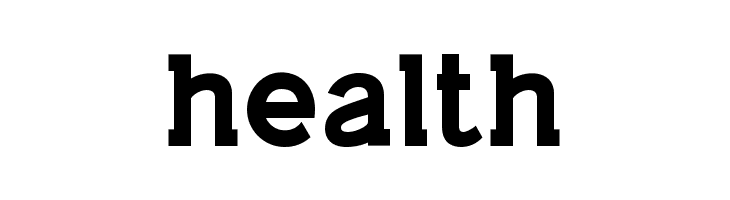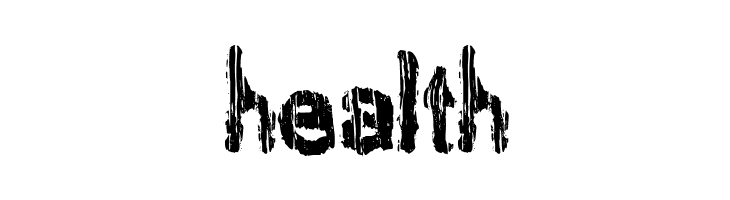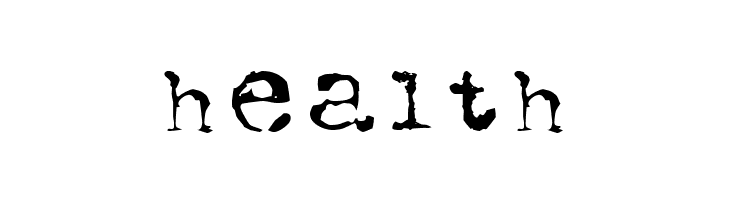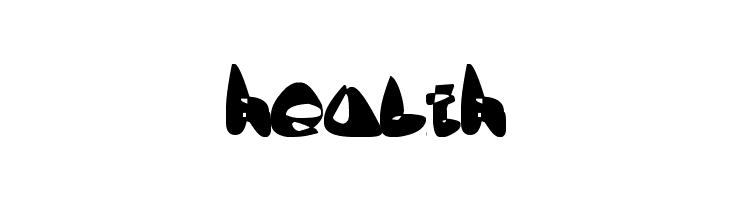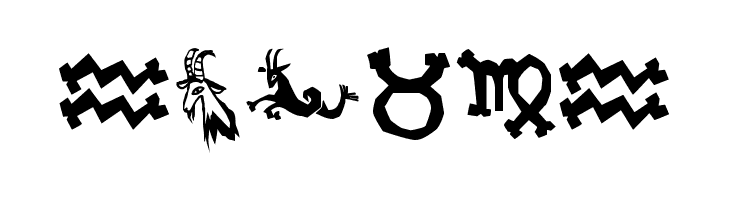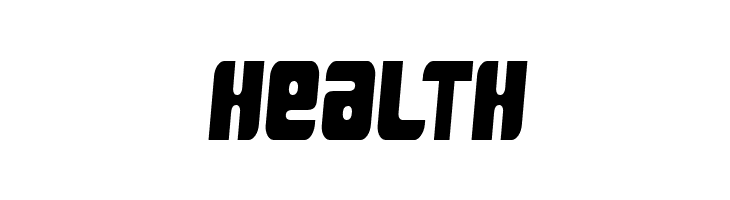
( Fonts by Juan Casco - www.juancasco.net )
A geometric, modern font with a clean, structured appearance and uniform character width.
( Fonts by Mohammed Rahman )
A bold, geometric font with clean lines and a modern aesthetic.
( Fonts by David Kerkhoff - www.hanodedphotography.com )
A distressed, grunge-style font with a rough, textured appearance.
( Fonts by Steve Ferrera )
A collection of iconic theme park and entertainment company symbols.
A decorative font featuring intricately designed zodiac symbols.
( Fonts by Marcin Leskow - www.martinleskow.pl )
A bold, wind-swept decorative font with a playful and dynamic style.
A bold, rounded font with a modern and slightly retro style.